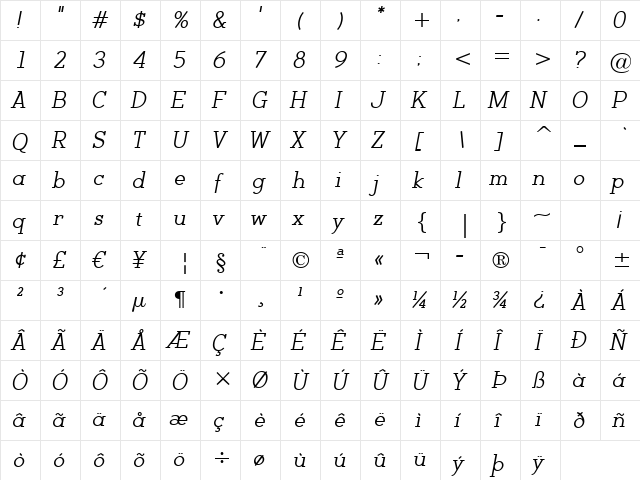
BacktalkSerif BTN Oblique Font Preview
BacktalkSerif BTN Oblique
BacktalkSerif BTN Oblique Font Details
Design Context for BacktalkSerif BTN Typeface
BacktalkSerif BTN brings classic typographic sensibility to the table — its serifs and measured letterforms reflect centuries of print heritage. Its italic angle brings a sense of urgency and motion to the letterforms.